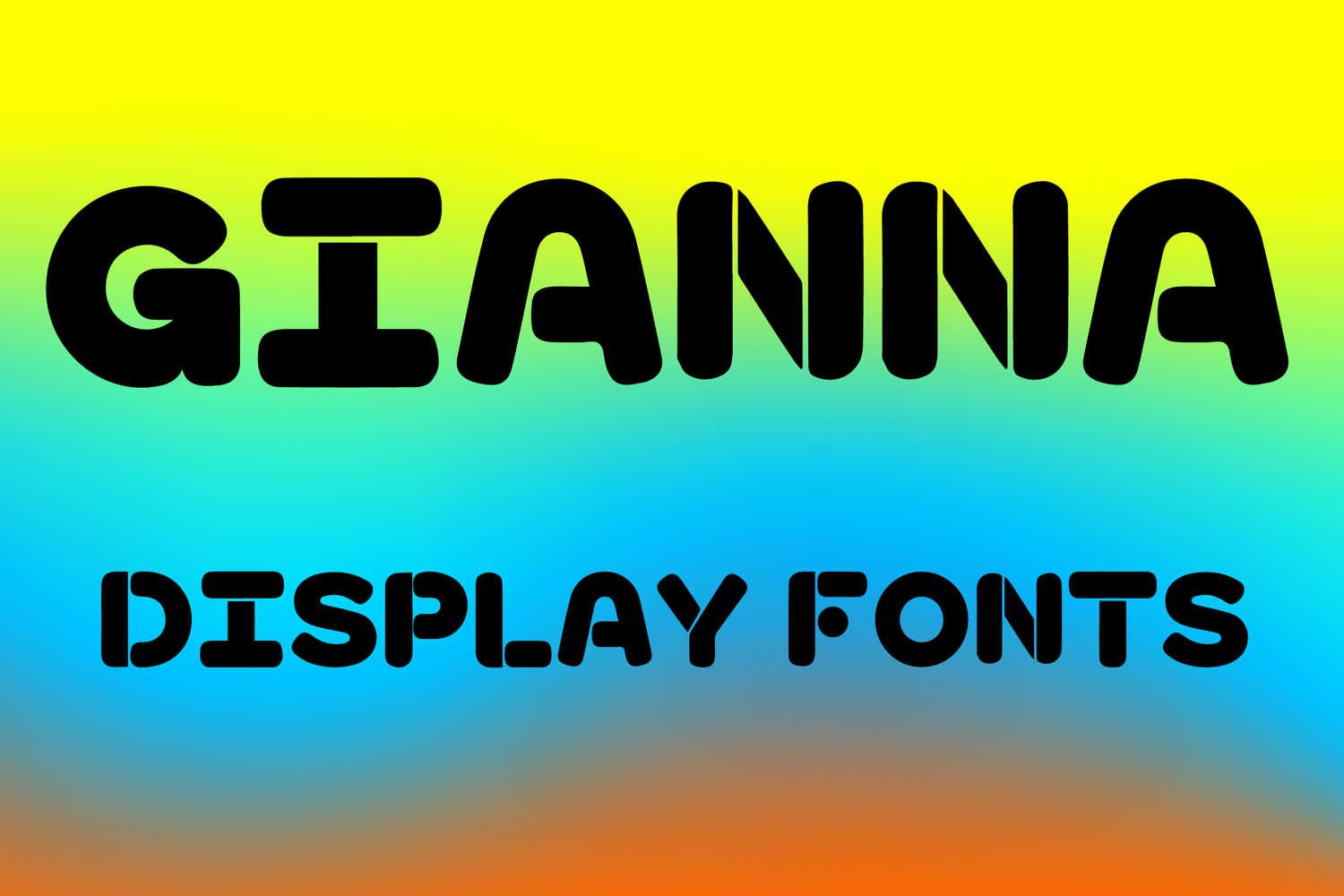
GIANNA
GIANNA is a bold modern display font with a rounded geometric style and playful retro charm. Its uppercase letterforms feature thick smooth strokes, soft curved corners, and distinctive cut-in details that create a fun, stylish, and eye-catching look. Designed with uppercase letters A–Z and numbers 0–9, GIANNA is perfect for branding, posters, packaging, logos, headlines, social media graphics, and creative projects that need a bold and memorable statement.